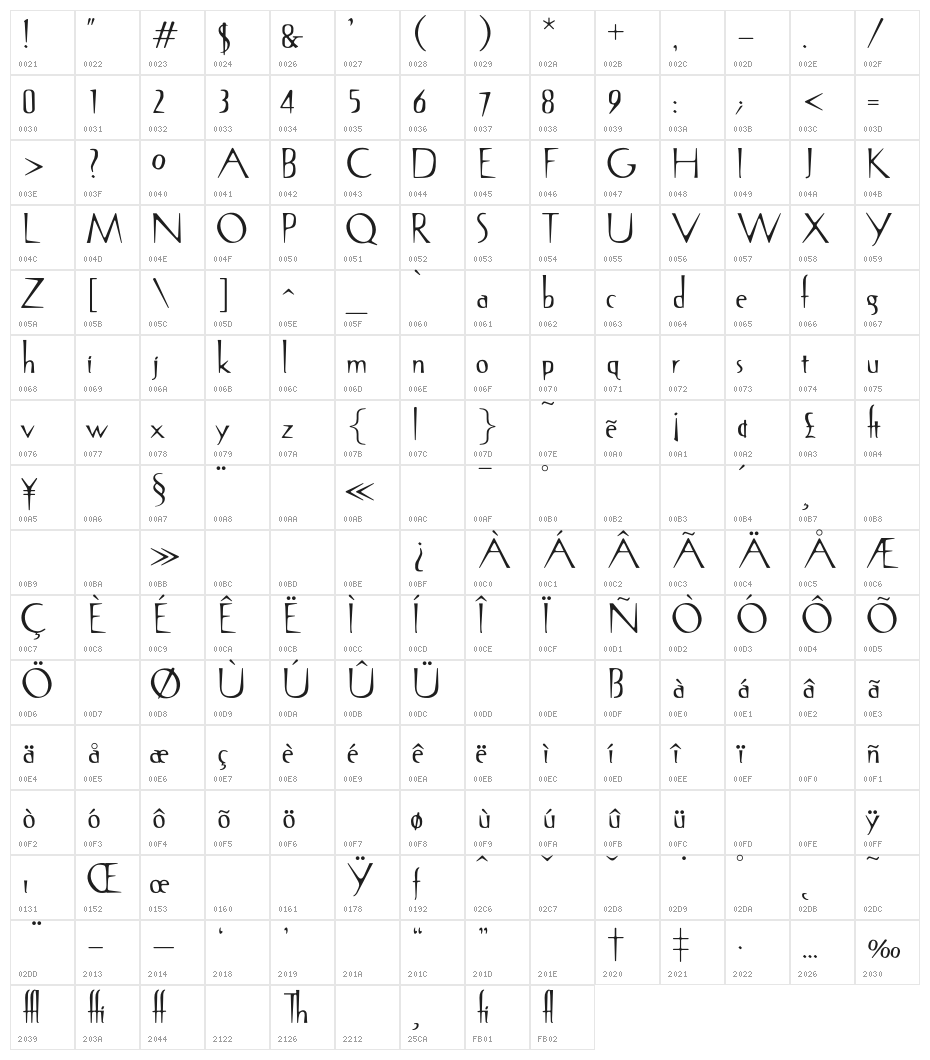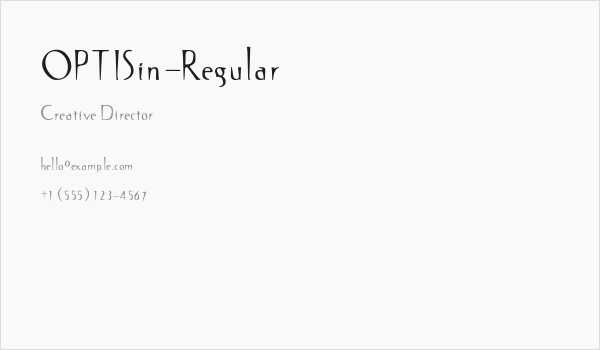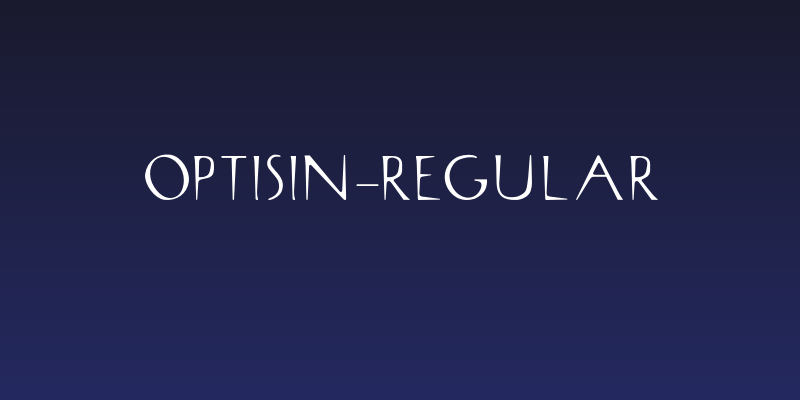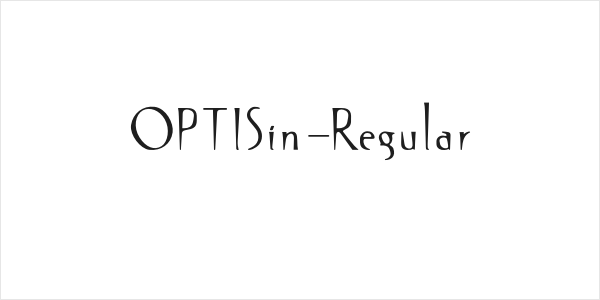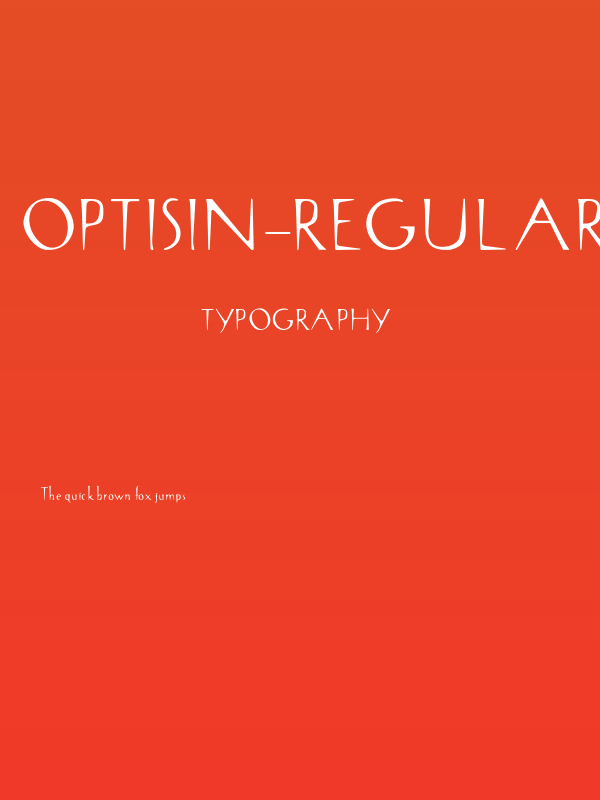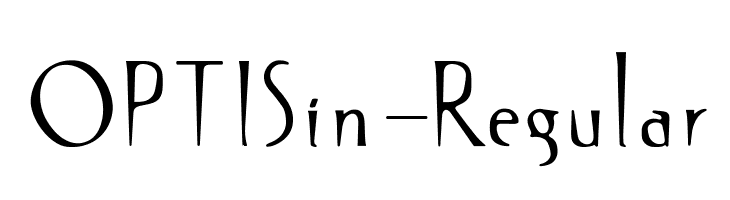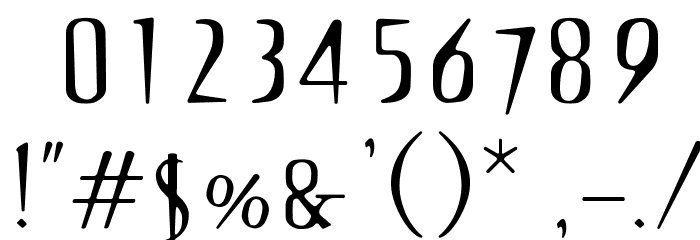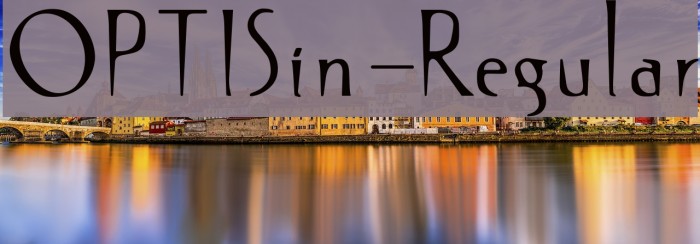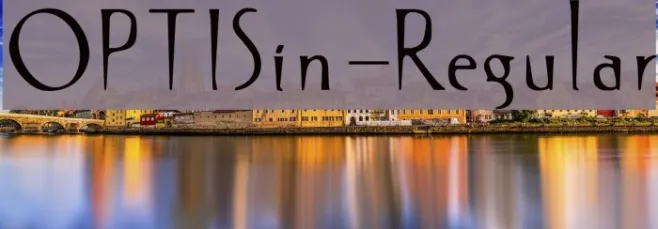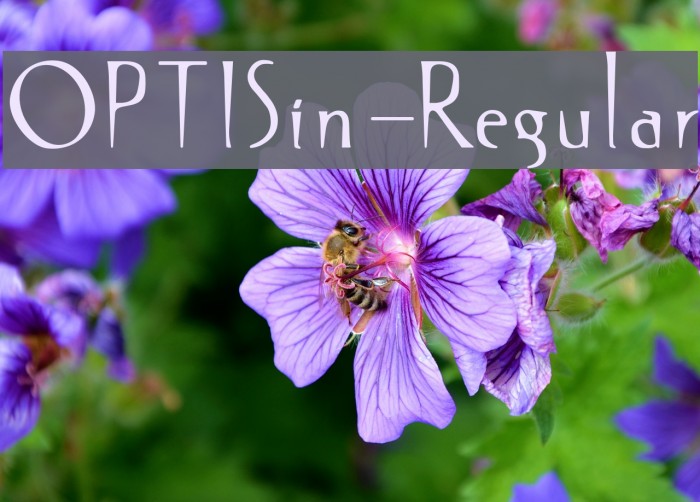
OPTISin-Regular Font
OPTISin-Regular Description
This font features a unique and artistic style, characterized by its irregular and slightly whimsical letterforms. The uppercase letters are tall and slender, with varying stroke widths that give them a hand-drawn appearance. The lowercase letters maintain this playful aesthetic, with some characters exhibiting distinctive curves and angles. The numerals are consistent with the overall style, offering a quirky yet readable design. Special characters are creatively integrated, enhancing the font's artistic flair. This font is ideal for projects that require a touch of creativity and individuality.
| Overall Style | Artistic and Whimsical |
| Proposed Projects | Ideal for creative projects such as artistic posters, unique branding, and playful invitations. |